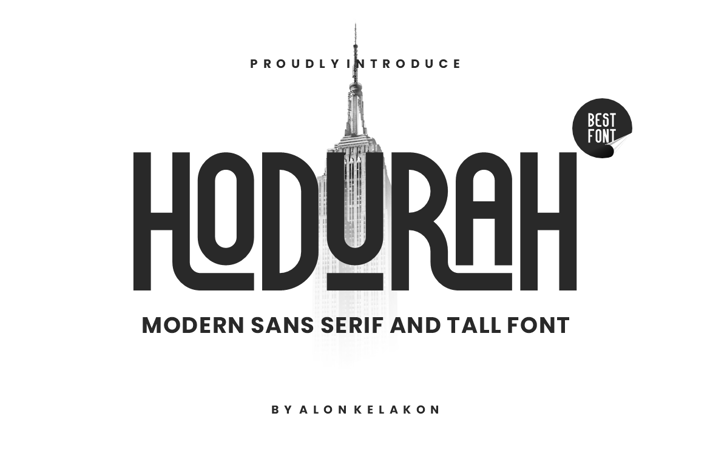
Hodurah Modern Font
Hodurah Font Font is unique . Ready to use for your design like labeling, movie sceen, poster, movie title, gigs, album covers, logos, and much more.